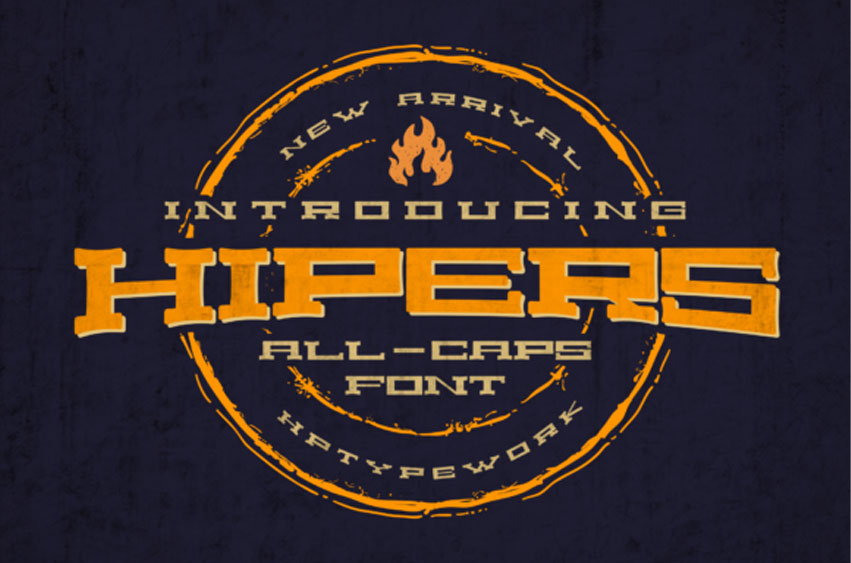
Hipers Font
Hipers Font is a cool, assertive and vintage styled display font.
Featuring the perfect amount of casualness, this font will fit perfectly on each of your designs.